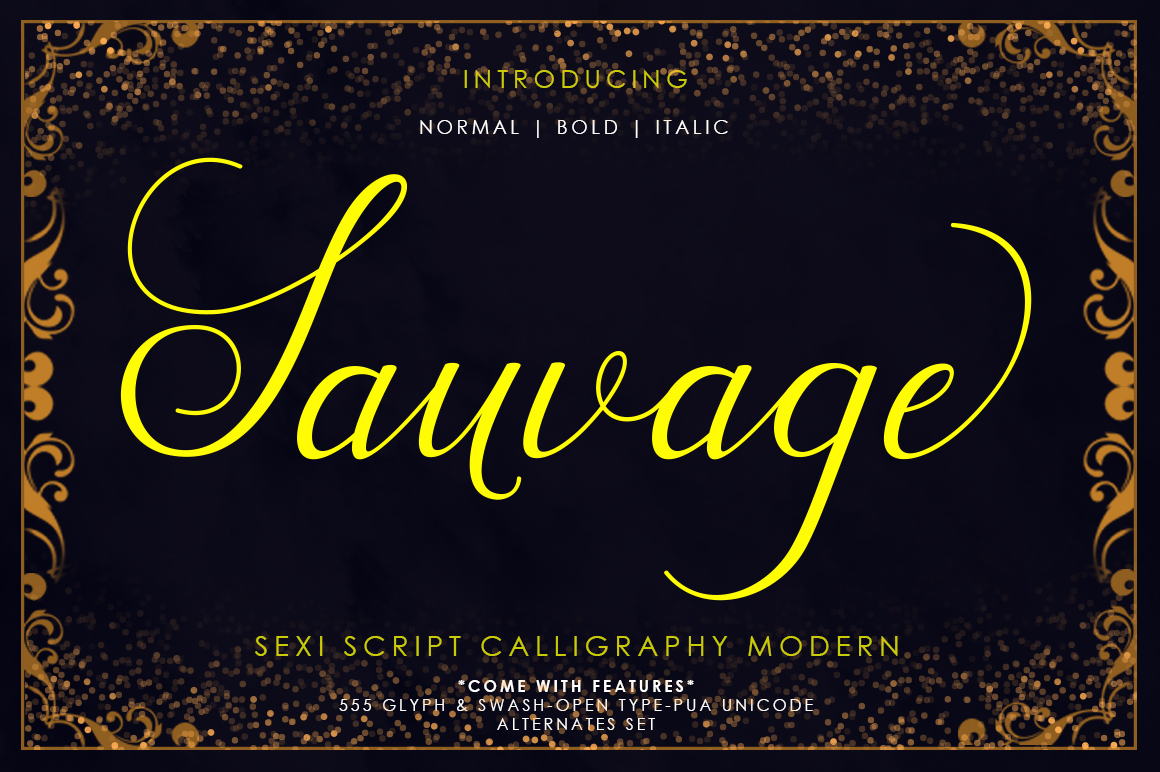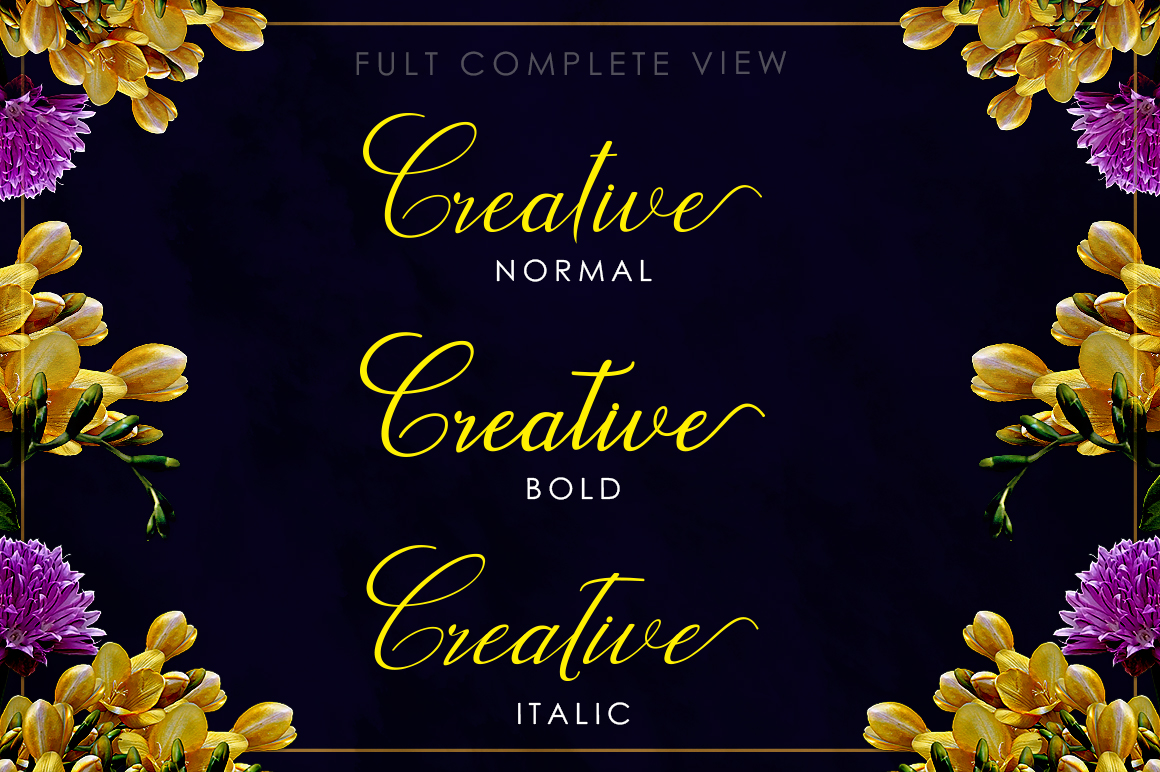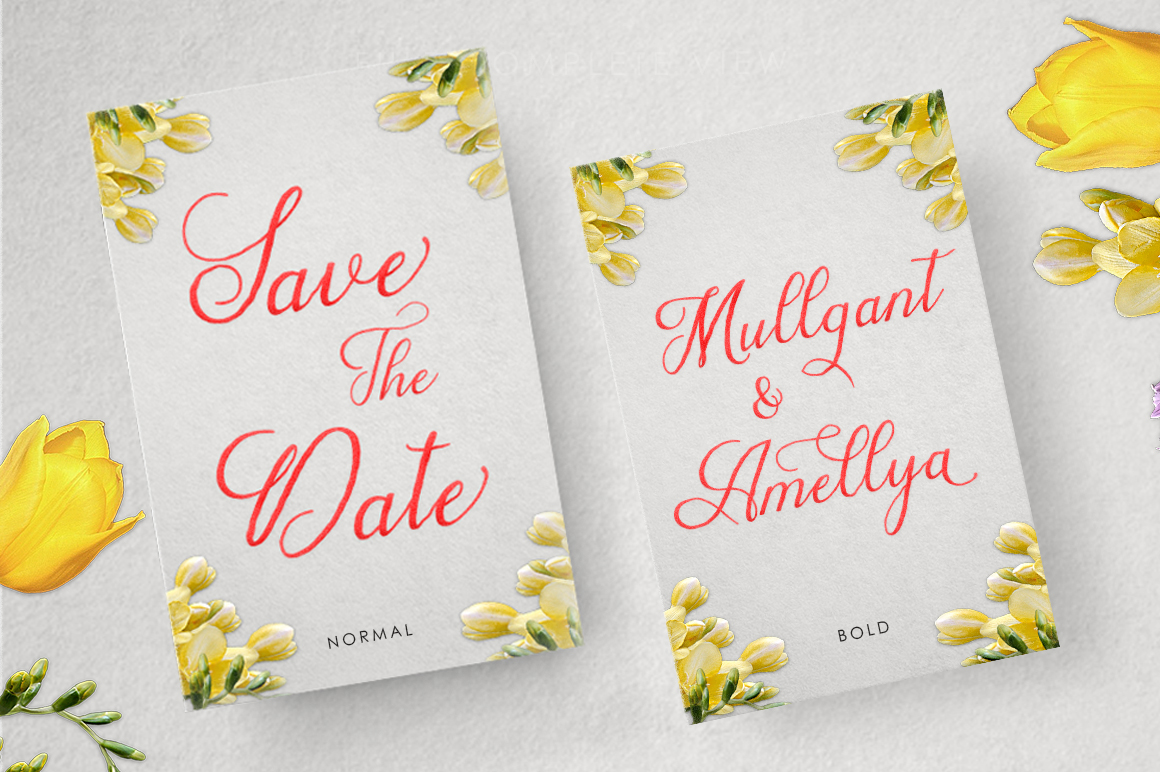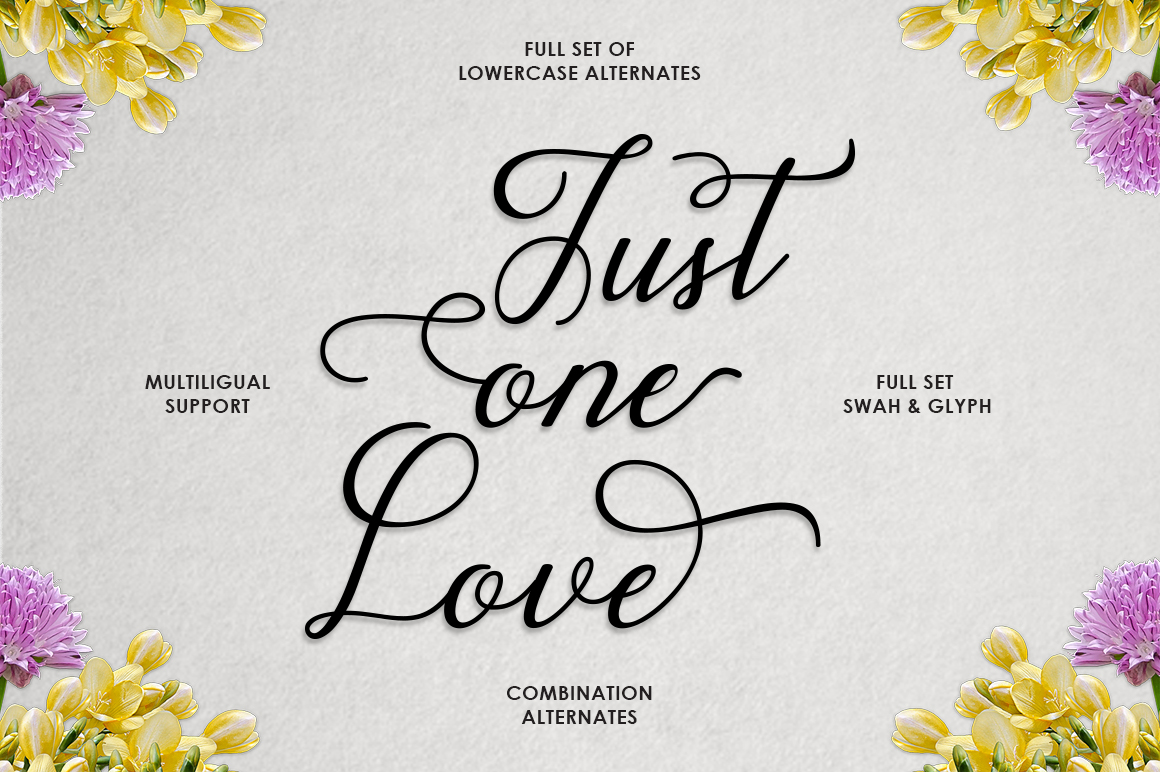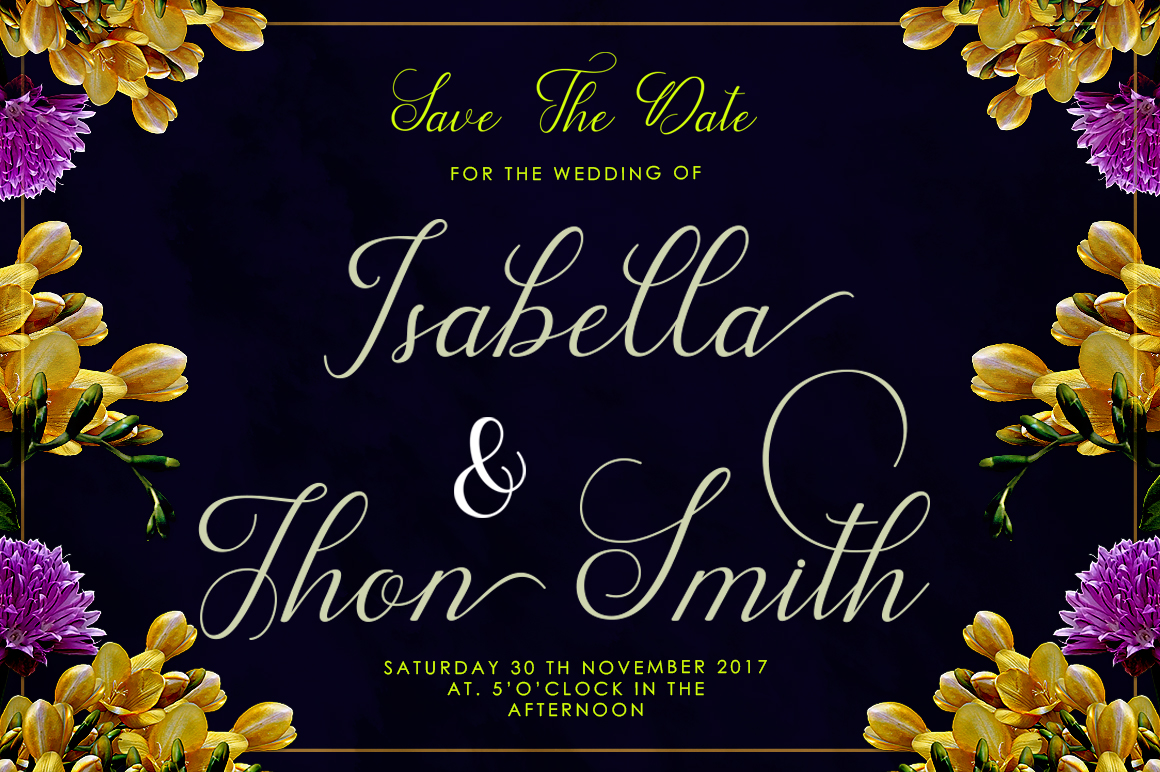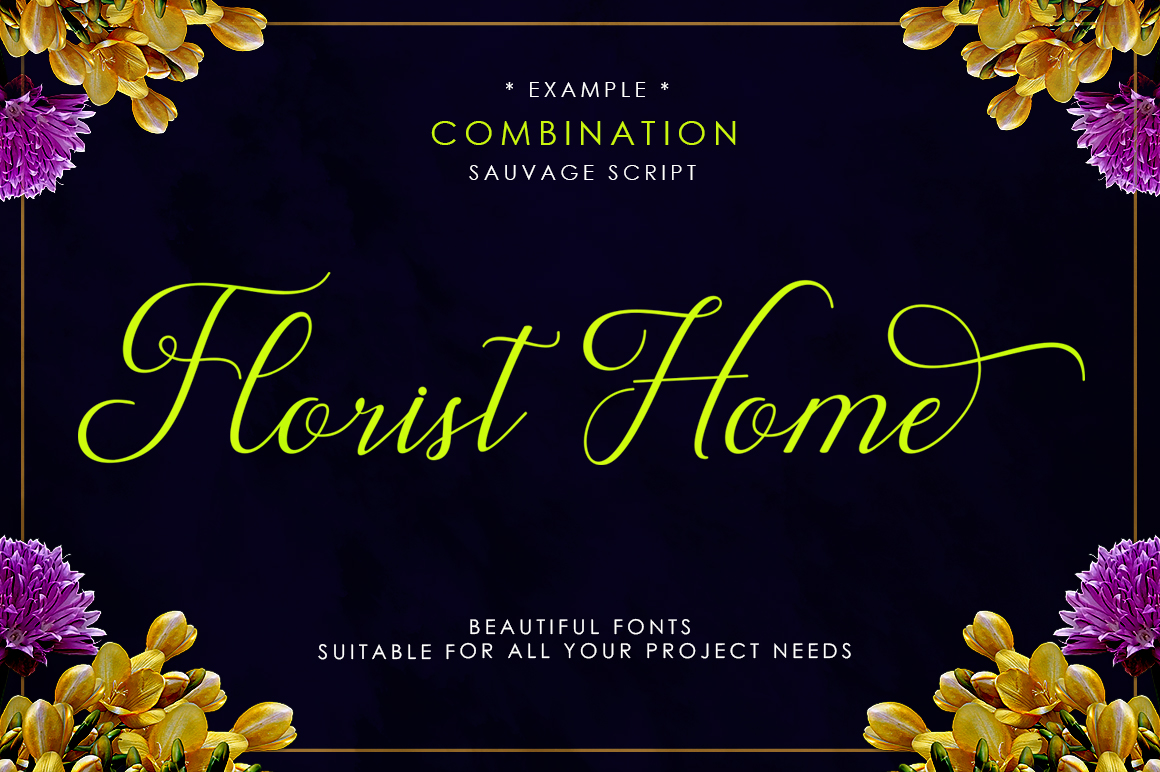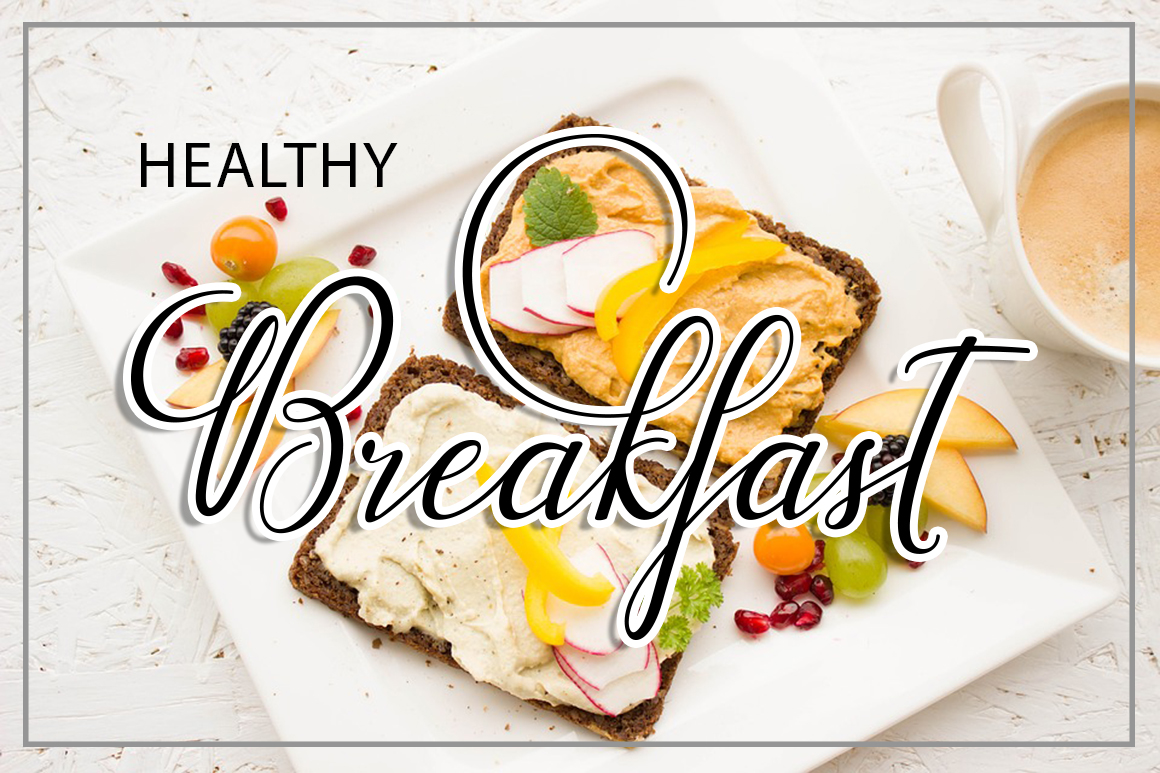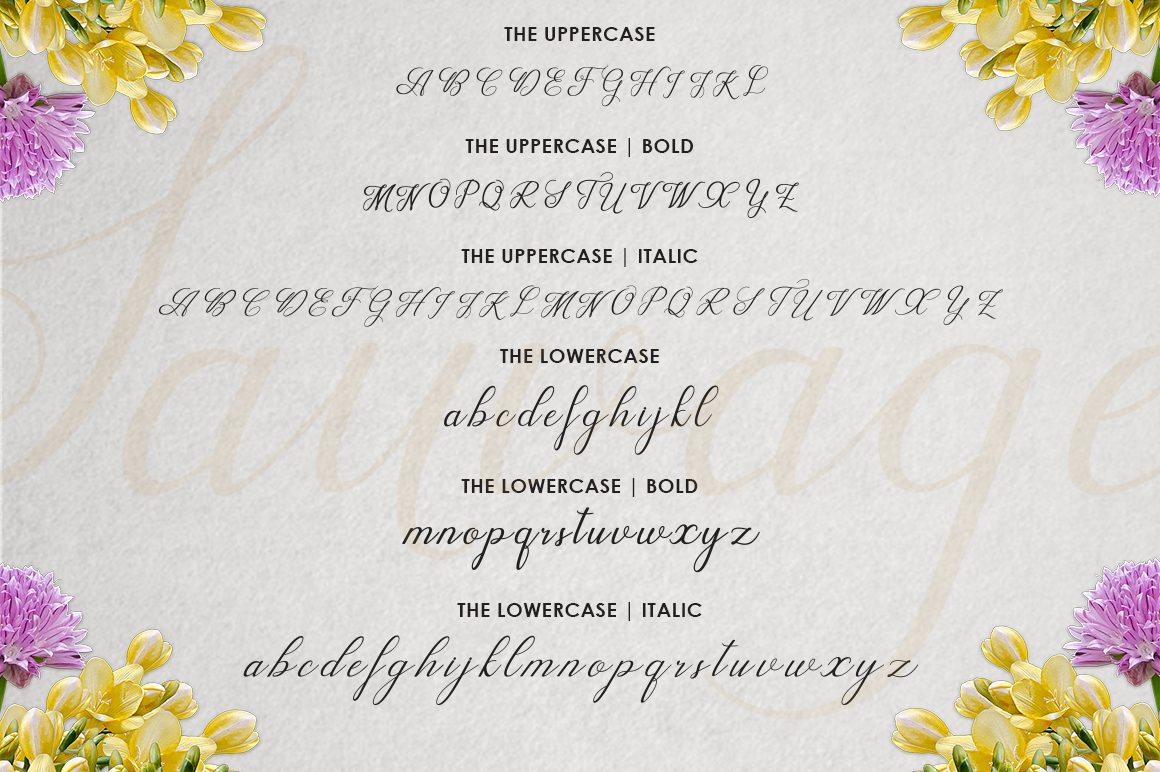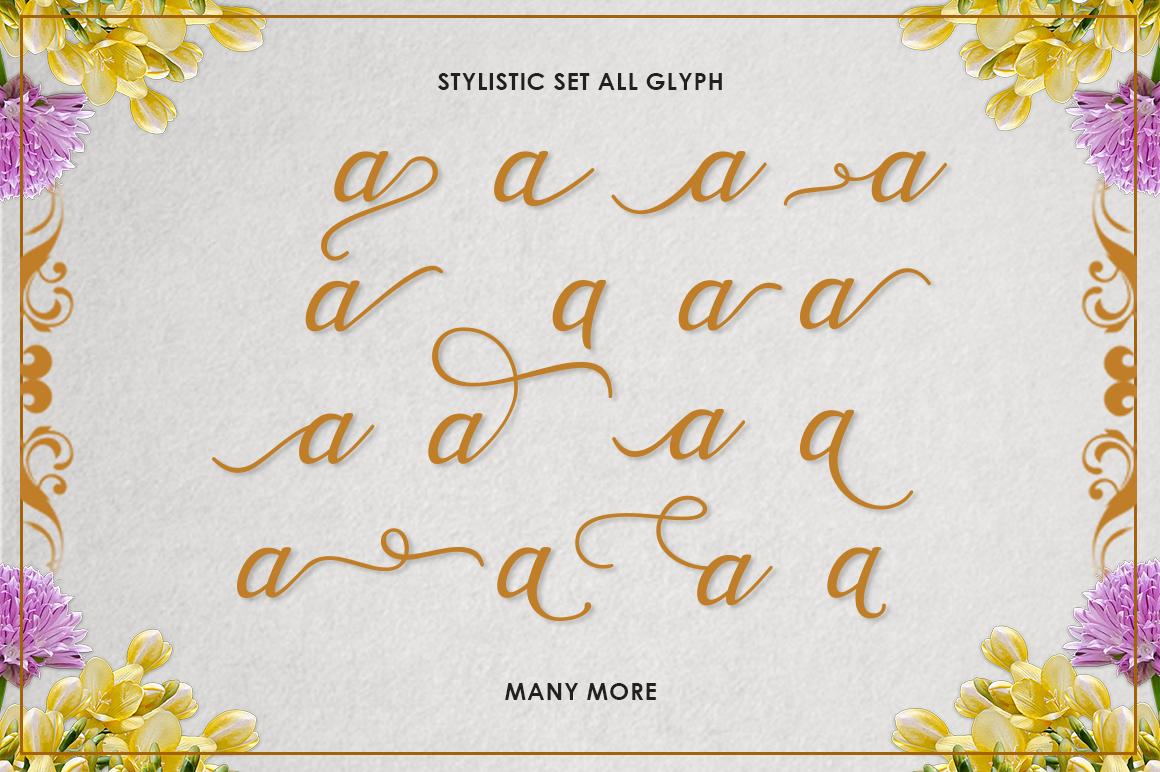
Sauvage Font
About Sauvage Font
Sauvage is a beautiful script font, both modern and calligraphic. Sauvage can add some romanticism and flair to a large range of designs.